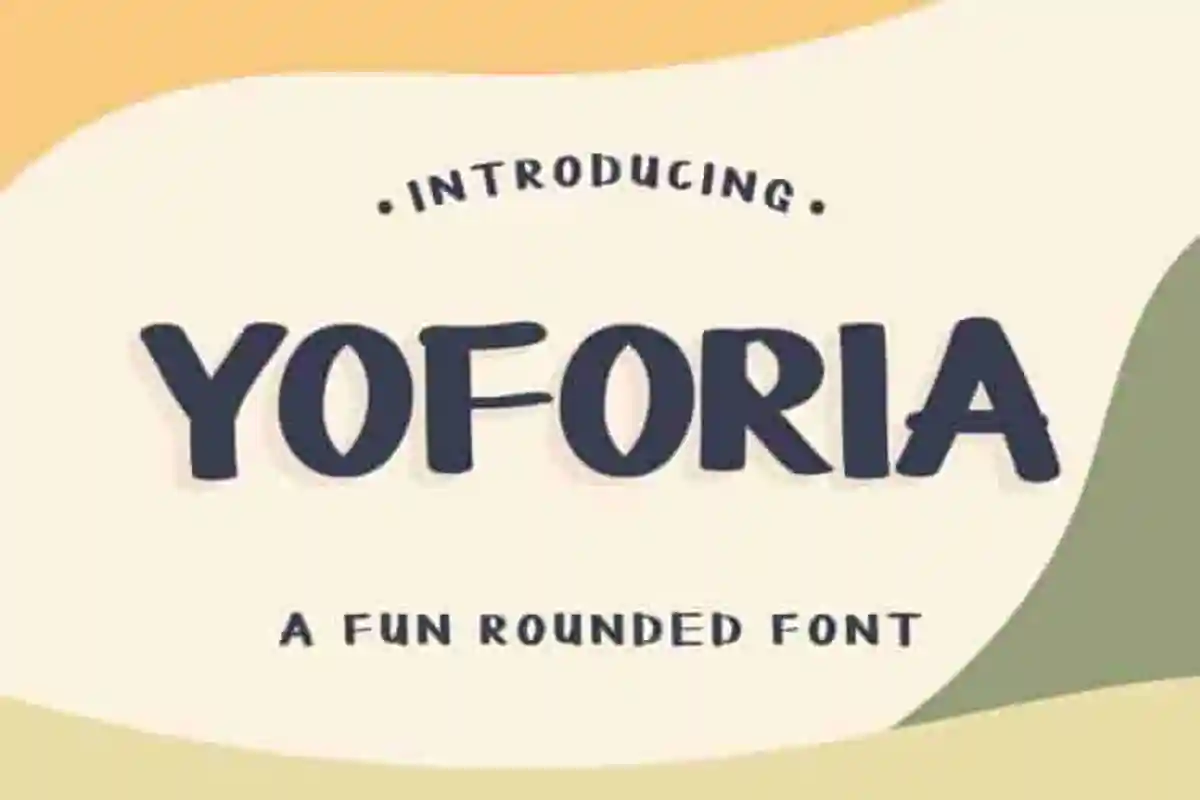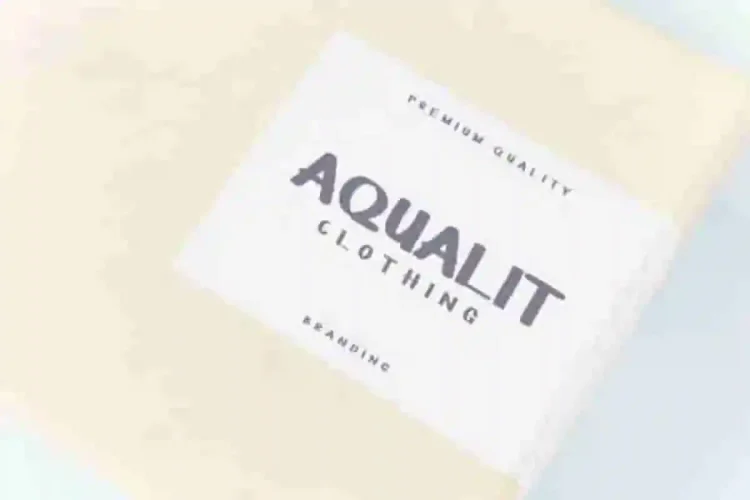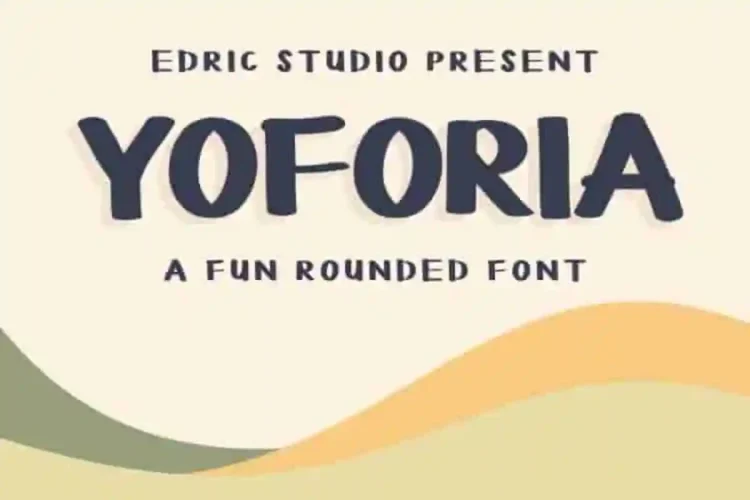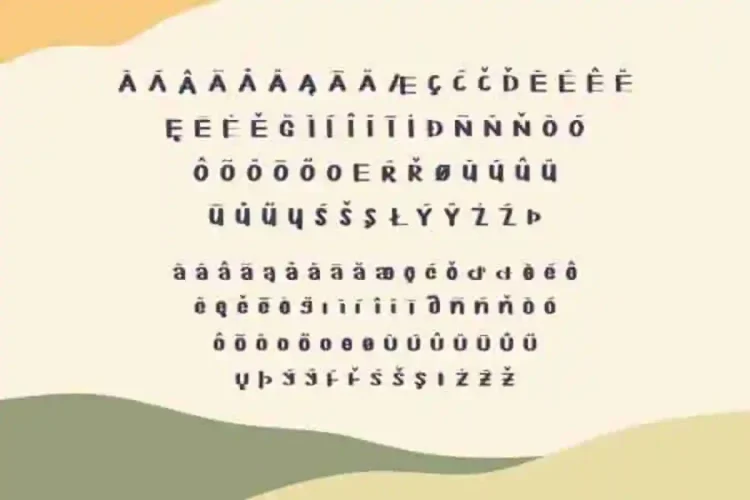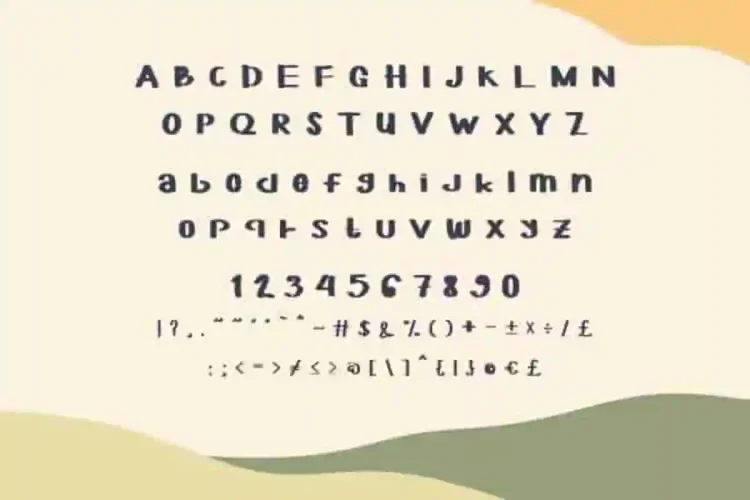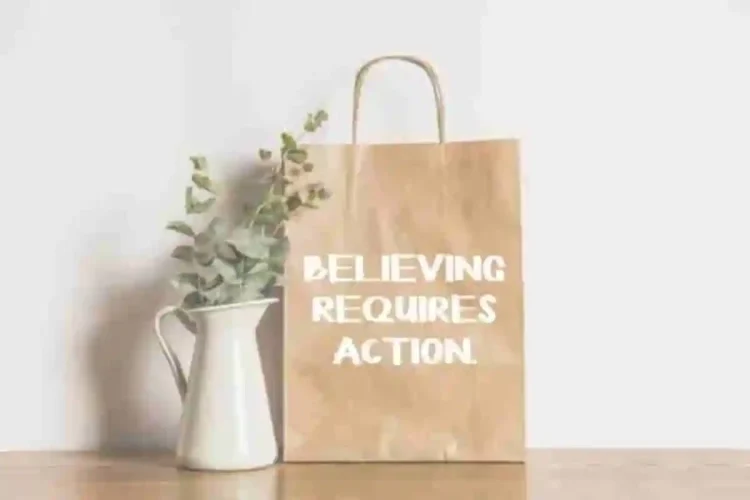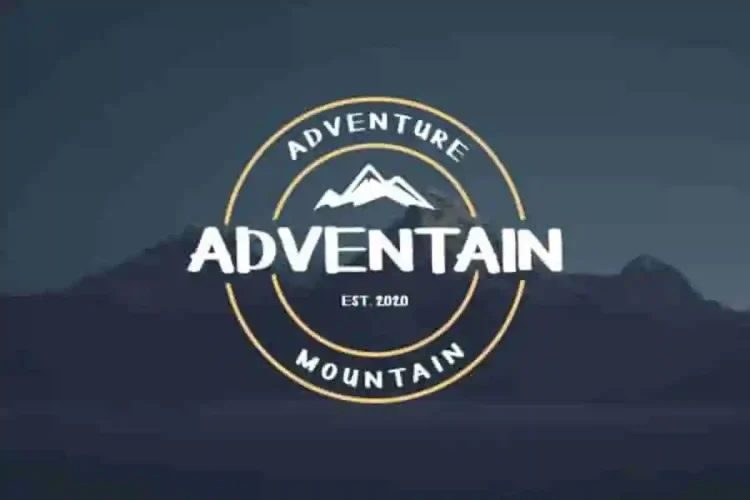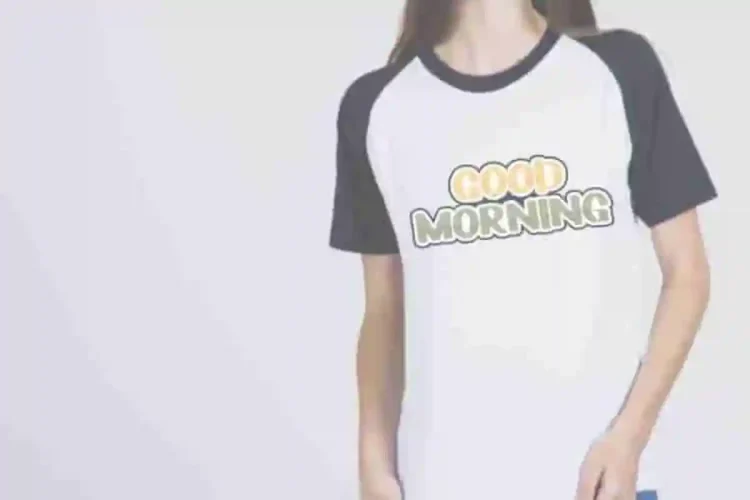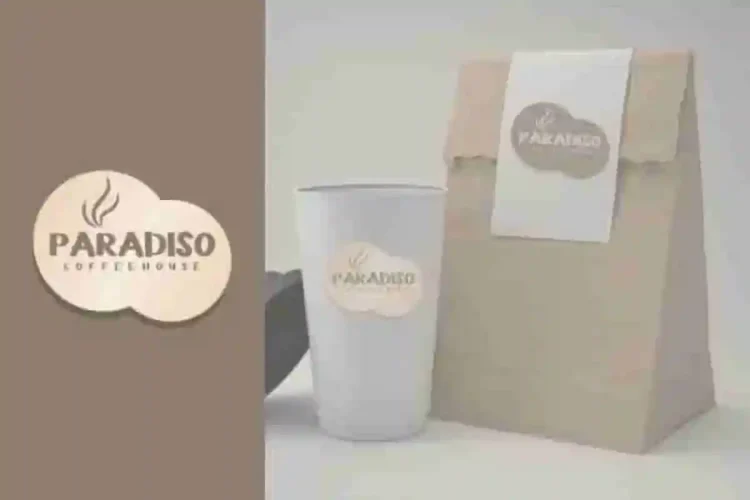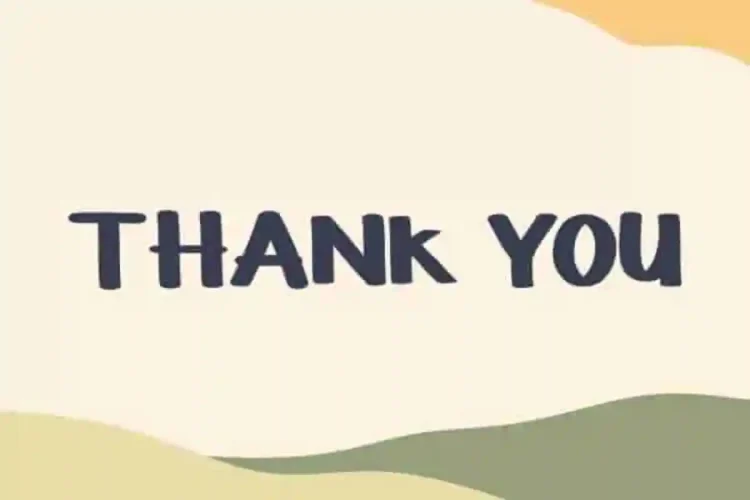
YOFORIA Rounded Brush Font
Introducing The newest font from our studio : YOFORIA Rounded Brush Font
This is a display decorative font, handcrafted from our Studio here in, Indonesia. The artists/designers of this unique tyeface is Ali and Suci.
YOFORIA Rounded Font is an exclusive unique bold decorative display typeface with inky brush style. This font has a great characters set, perfectly managed with well spaced and kerning. The theme style of this font will be fun, bold, marker, strong, simple.
YOFORIA Rounded Font will be great for any projects including :poster, flyer, signage, cover, brochure etc. Many industries will be match for this typeface: events, gym, sport, fitness, school, education, musician etc.